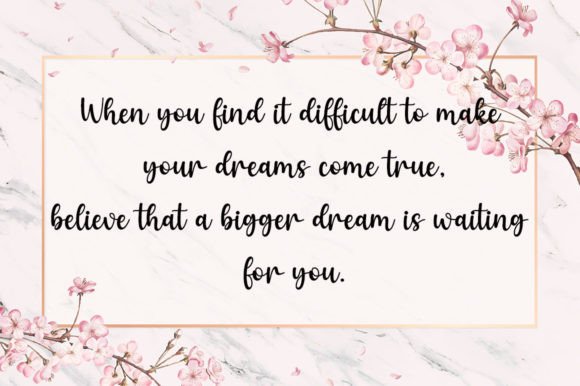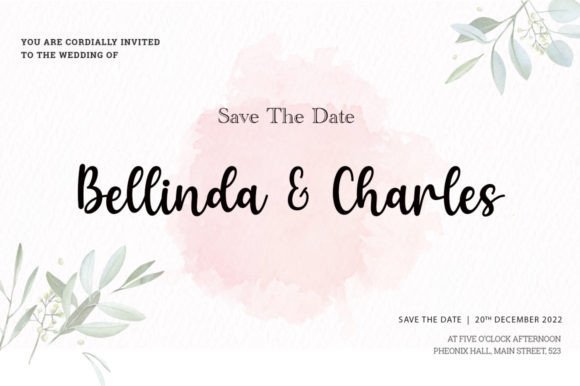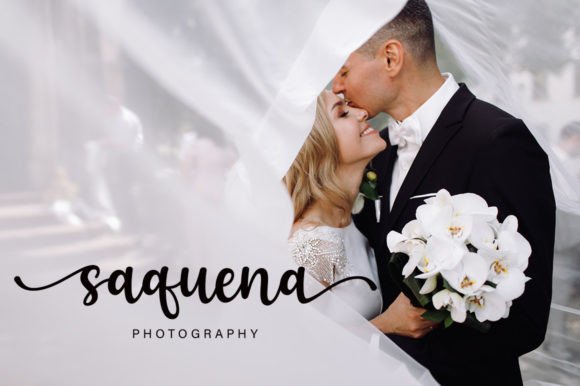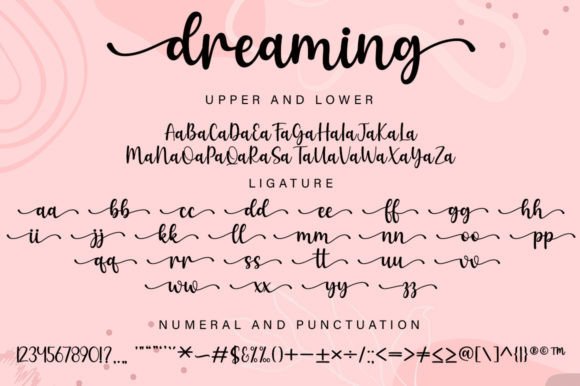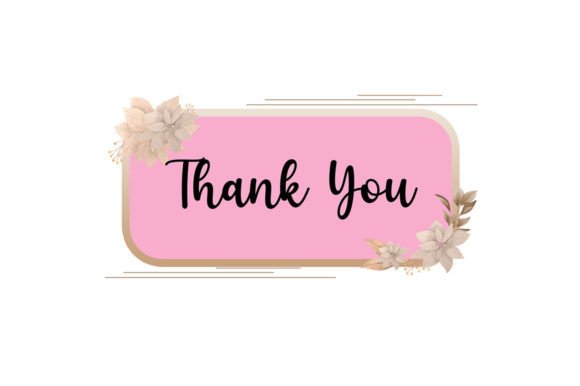
Dreaming Font: Elevate Your Designs with Elegance and Sophistication
Are you on the hunt for a font that exudes elegance, delicacy, and a touch of timeless charm? Look no further than the Dreaming Font, a beautiful handwritten typeface that is sure to capture your heart. With its incredibly distinct style and flowing lines, this font is perfect for designers and crafters looking to add a touch of sophistication to their projects.
The Beauty of Dreaming Font
Dreaming Font is a delicate, elegant, and flowing handwritten font that is designed to make your designs stand out. Its unique and timeless style is sure to evoke a sense of romance and whimsy, making it perfect for a wide range of projects, from wedding invitations and branding materials to digital graphics and crafts.
One of the standout features of Dreaming Font is its incredible attention to detail. The font is carefully crafted to ensure that every letter, glyph, and swash is perfect, resulting in a beautiful and cohesive look that will elevate your designs to the next level.
Dreaming Font is PUA (Private Use Area) encoded, which means that you can access all of the glyphs and swashes with ease. This encoding allows you to unlock the full potential of the font, giving you access to a wide range of characters, ligatures, and ornaments that will help you create truly spectacular designs.
Dreaming Font is a versatile typeface that is perfect for a wide range of design applications. Whether you’re a professional designer or a crafter looking to add a personal touch to your work, this font is sure to inspire.
Some of the many uses for Dreaming Font include:
- Digital graphics, such as social media graphics and blog headers
- Crafts, such as scrapbooking and card making
- Signs and displays
Why Choose Dreaming Font?
With so many fonts on the market, why choose Dreaming Font? Here are just a few reasons why this font stands out:
- Unique and timeless style: Dreaming Font has a distinct and elegant style that will set your designs apart.
- PUA encoding: Easily access all glyphs and swashes to unlock the full potential of the font.
- Versatile: Perfect for a wide range of design applications, from digital graphics to crafts.
- Elegant and sophisticated: Adds a touch of luxury and refinement to your designs.
Get Ready to Fall in Love with Dreaming Font
If you’re looking for a font that will elevate your designs and add a touch of elegance and sophistication, look no further than Dreaming Font. With its unique and timeless style, PUA encoding, and versatility, this font is sure to capture your heart.